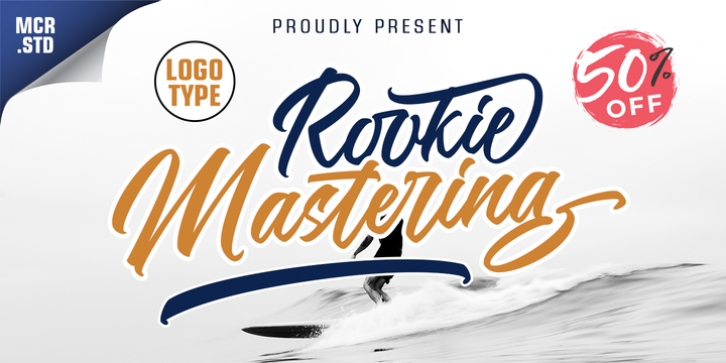
Rookie Mastering Typeface was designed by Muksalmina and published by Mercurial. Rookie Mastering Typeface contains 1 style.
Rookie Mastering is a clean logotype script. It offers beautiful typographic harmony for a diversity of design projects, including logos & branding, wedding designs, handwritten quotes, product packaging, header, poster, merchandise, social media & greeting cards. social media posts, advertisements & product designs.